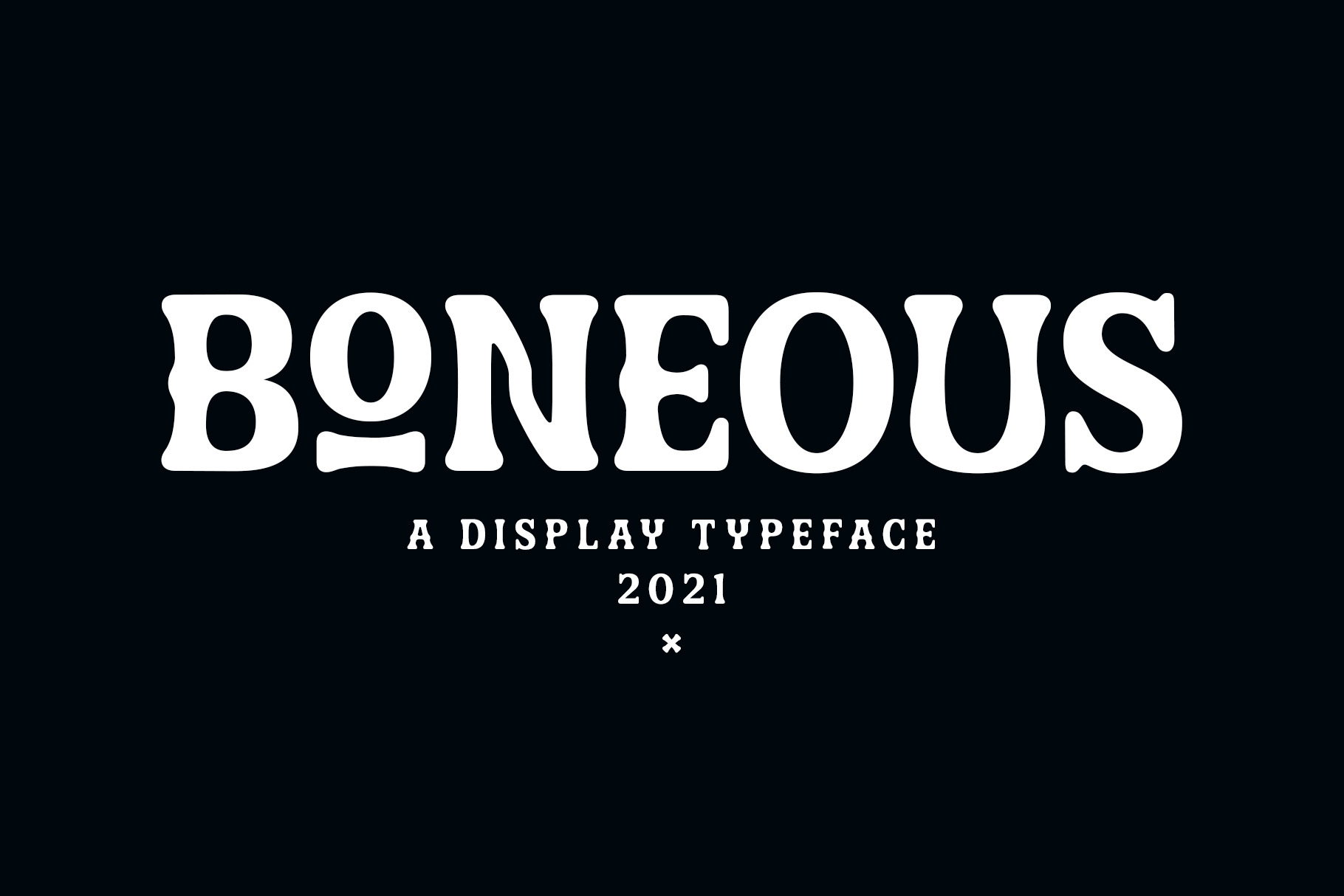
Boneous is a display font. Inspired by the shape of the bones. Comes in two font styles, regular and oblique.
Boneous comes with 400+ glyphs, which also includes multilingual languages. It's perfect for headlines, branding, and many more.
- Punctuation & symbols
- Stylistic sets
- International characters (Multilingual)